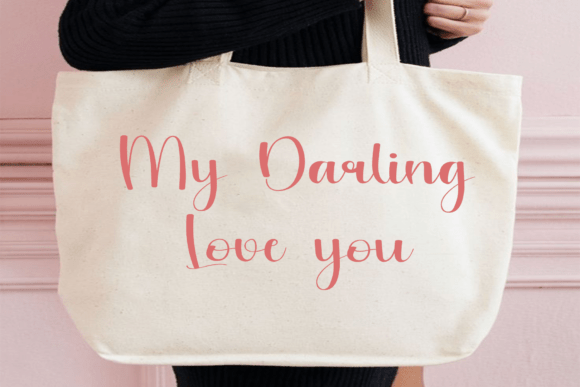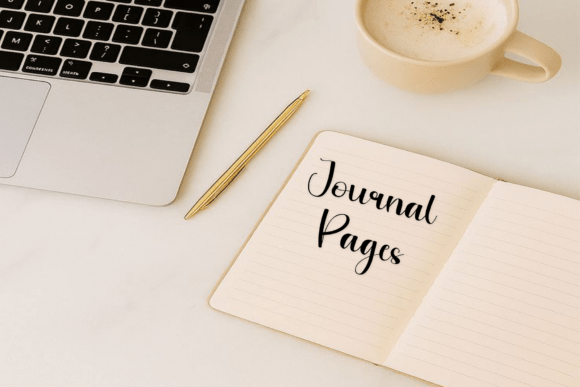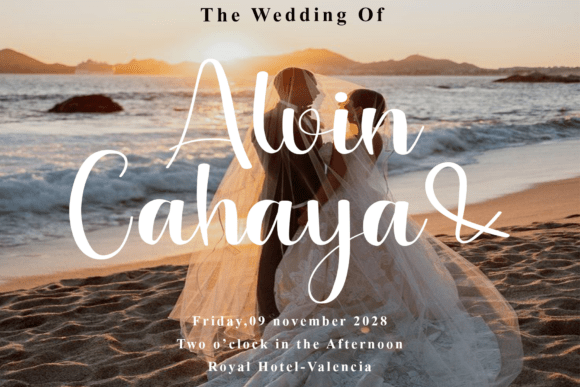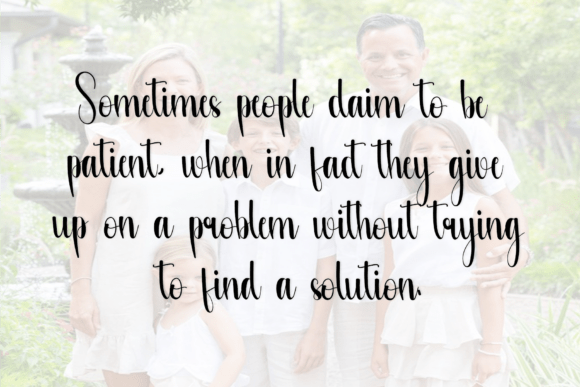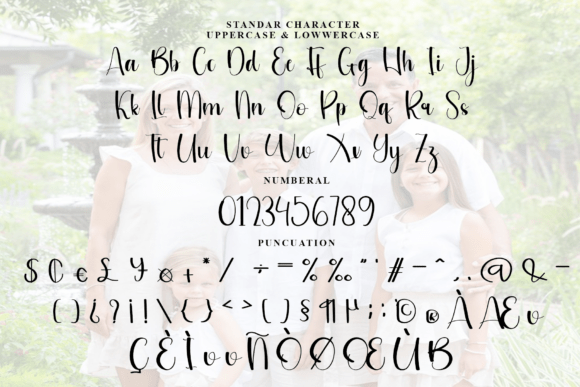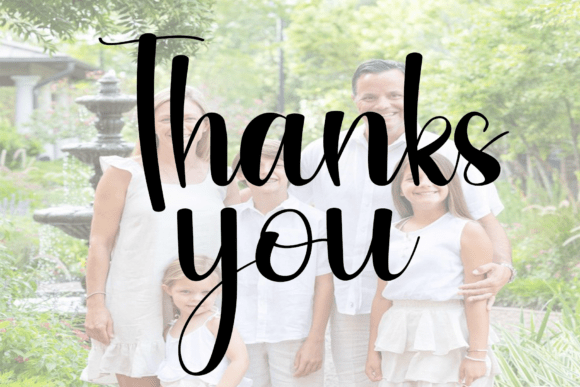
Introducing Familia Clipart Font: The Perfect Blend of Warmth and Personality
Are you tired of using generic fonts that lack personality and warmth? Look no further than Familia Clipart Font, a casual handwritten font that radiates charm and approachability. With its smooth strokes, natural curves, and easy-flowing letterforms, this font captures the essence of authentic handwriting with a modern twist.
The Characteristics of Familia Clipart Font
Familia Clipart Font boasts a range of characteristics that make it an ideal choice for designers and crafters. Some of its key features include:
- Smooth Strokes: The font features smooth, fluid strokes that give it a natural and effortless look.
- Natural Curves: The curves in Familia Clipart Font are organic and relaxed, adding to its friendly and approachable feel.
- Easy-Flowing Letterforms: The letterforms in this font flow seamlessly into one another, creating a sense of continuity and harmony.
The Benefits of Using Familia Clipart Font
So why choose Familia Clipart Font for your design projects? Here are just a few benefits of using this versatile font:
- Warmth and Personality: Familia Clipart Font adds a personal touch to any design, making it perfect for projects that require a friendly and approachable tone.
- Readability: Despite its casual nature, this font remains highly readable, even at smaller sizes.
- Versatility: Familia Clipart Font can be used for a wide range of design projects, from quotes and invitations to branding and social media posts.
Ideal Uses for Familia Clipart Font
So what types of projects are best suited to Familia Clipart Font? Here are a few ideas to get you started:
- Quotes: Add a personal touch to inspirational quotes, motivational sayings, and more.
- Invitations: Use Familia Clipart Font to create warm and inviting invitations for weddings, parties, and other special events.
- Branding: This font is perfect for brands that want to convey a friendly and approachable tone.
- Social Media Posts: Add a personal touch to your social media posts, making them more engaging and relatable.
Tips for Using Familia Clipart Font
To get the most out of Familia Clipart Font, here are a few tips to keep in mind:
- Experiment with Sizes: Familia Clipart Font looks great at a range of sizes, from large headings to smaller body text.
- Play with Colors: This font pairs well with a wide range of colors, so don’t be afraid to experiment and find the perfect combination for your design.
- Mix and Match: Combine Familia Clipart Font with other fonts to create a unique and visually appealing design.
In conclusion, Familia Clipart Font is a versatile and charming font that is perfect for designers and crafters looking to add a personal touch to their design projects. With its smooth strokes, natural curves, and easy-flowing letterforms, this font radiates warmth and personality. Whether you’re working on a quote, invitation, branding project, or social media post, Familia Clipart Font is sure to deliver both readability and charm.